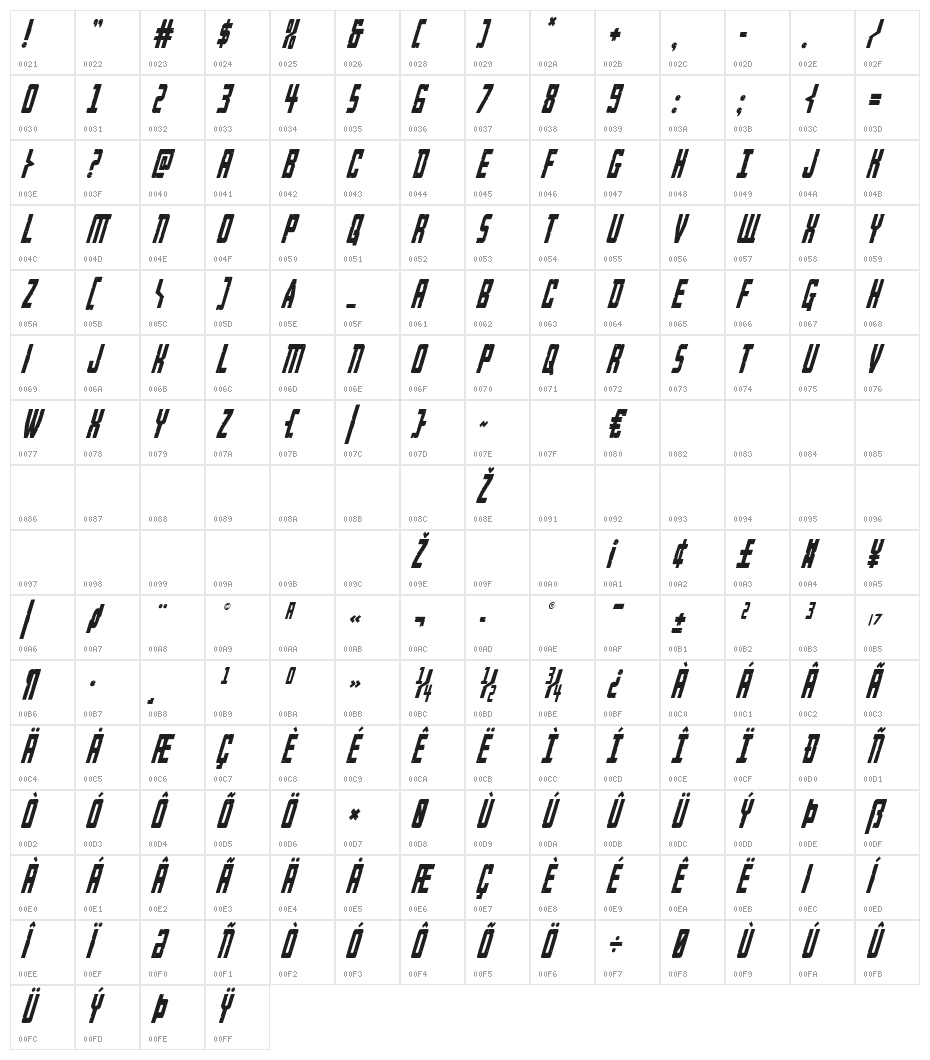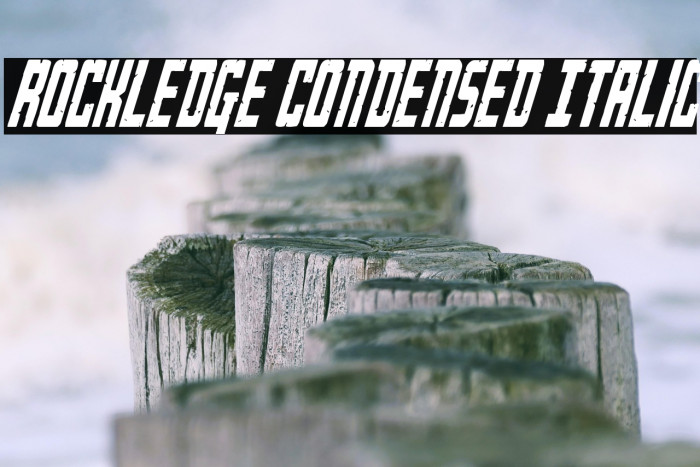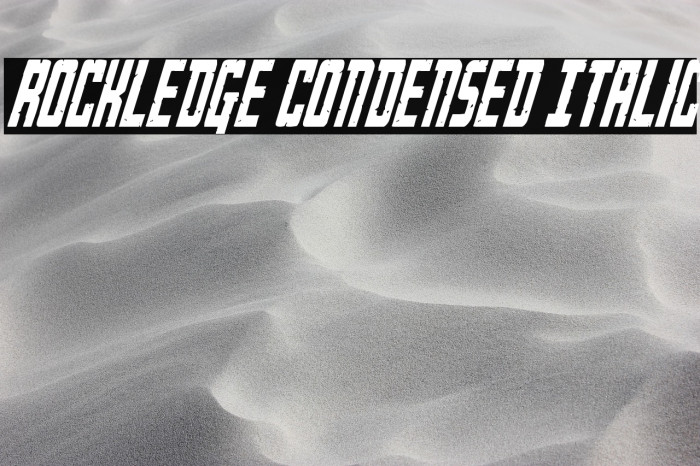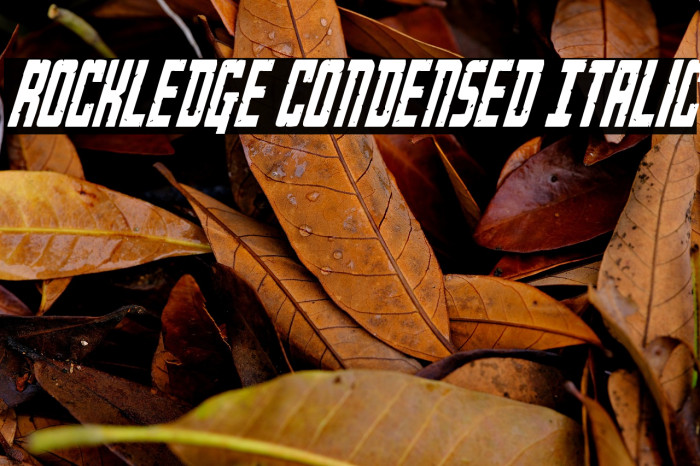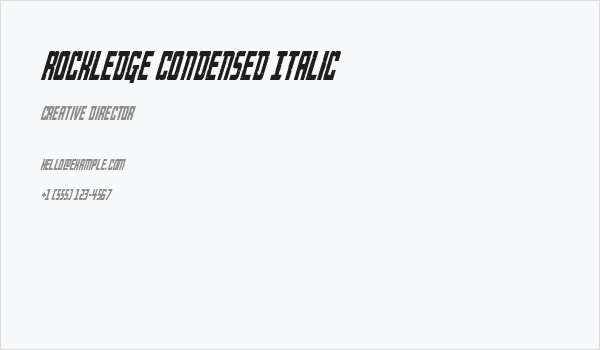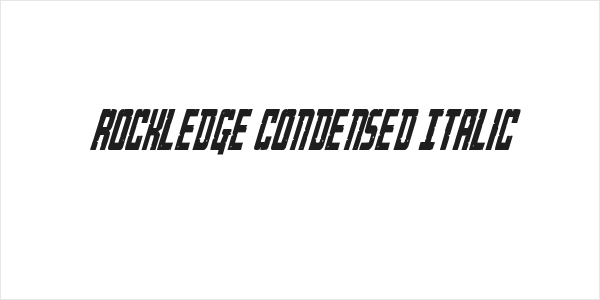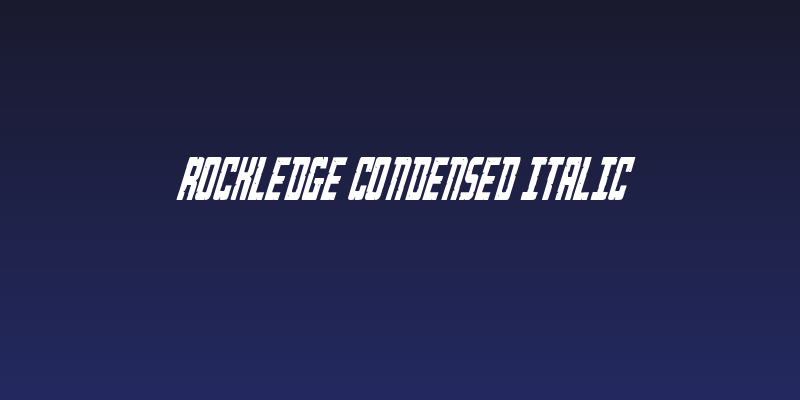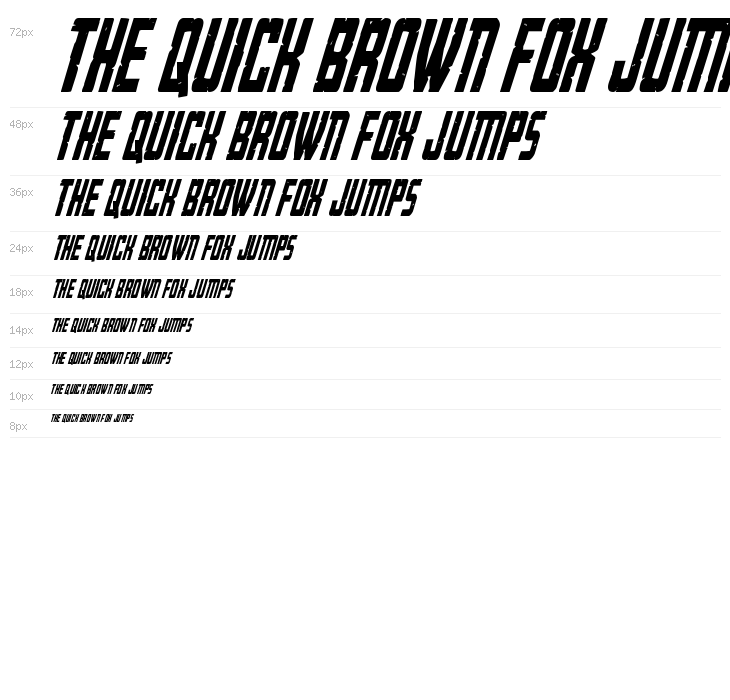
Rockledge Condensed Italic Font
Rockledge Condensed Italic Description
This font exhibits a bold, condensed style with a distinct italic slant, giving it a dynamic and forward-moving appearance. The characters are tightly spaced, enhancing the compactness of the design. Each letter features sharp, angular edges and a uniform stroke width, contributing to its modern and sleek aesthetic. The font's high contrast between the thick strokes and the narrow spacing creates a striking visual impact. It is well-suited for attention-grabbing headlines or titles, where a strong and assertive presence is desired. The inclusion of numbers and special characters ensures versatility across various design applications.
Proposed ProjectsIdeal for sports branding, dynamic posters, modern advertising, and impactful headlines.